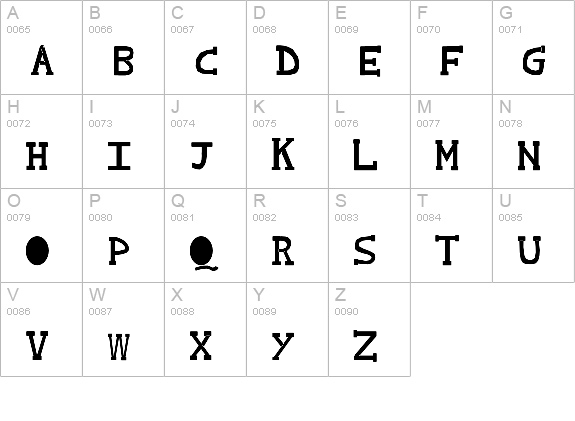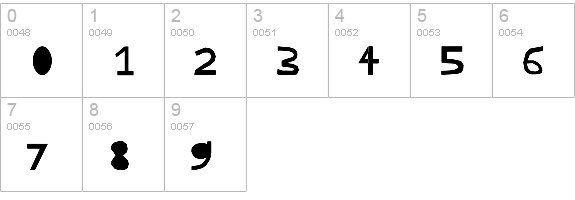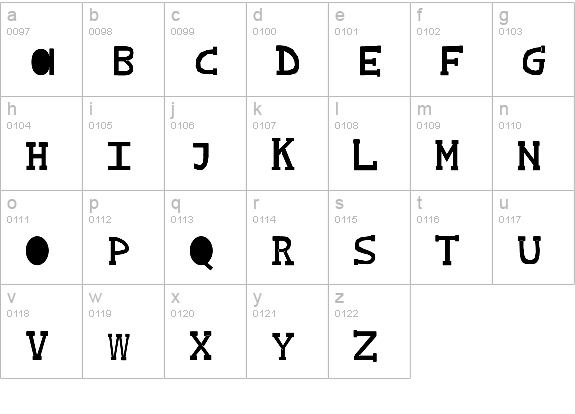
Kilimanjaro Two Font Details
Introducing Kilimanjaro Two, a stunning font that will take your designs to new heights! This font is the perfect blend of elegance and modernity, making it a versatile choice for any project. With its sleek lines and stylish curves, Kilimanjaro Two adds a touch of sophistication to your designs. But what truly sets Kilimanjaro Two apart is its availability for free! Yes, you read that right - this incredible font can be downloaded for free at FontsMarket.com. Whether you're a professional designer or a casual enthusiast, having access to high-quality fonts without breaking the bank is essential. And with Kilimanjaro Two, you can now elevate your designs without spending a dime. Imagine the possibilities with Kilimanjaro Two. From logos and branding to invitations and posters, this font will effortlessly enhance your creations. Its clean and legible characters ensure readability, while its unique details add a touch of personality. This font truly captures the essence of modern design, making it a must-have for any creative individual. But don't just take our word for it - download Kilimanjaro Two today and experience its beauty firsthand. With its freely available download, there's no reason not to give this font a try. So, why wait? Transform your designs with Kilimanjaro Two and let your creativity soar to new heights!